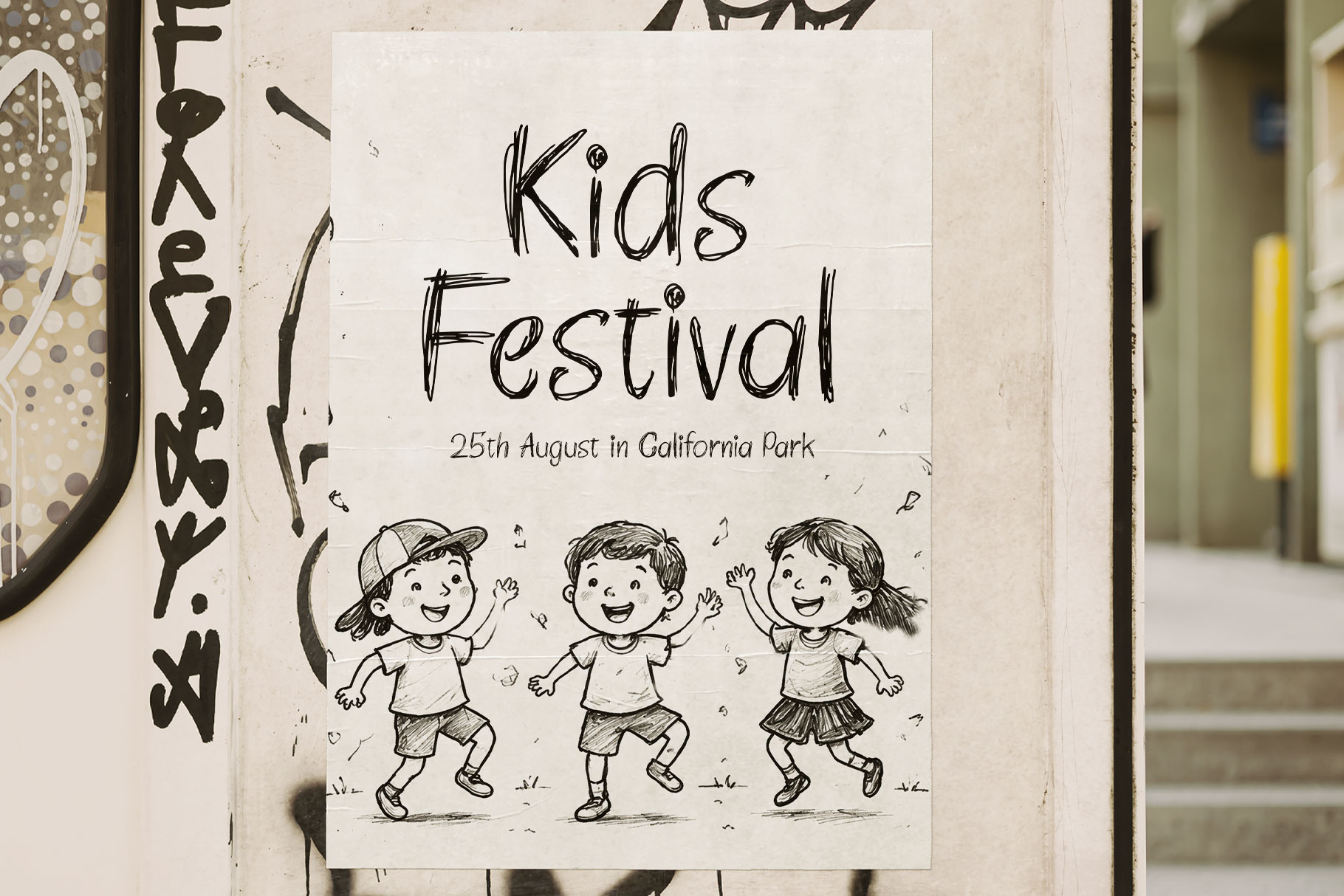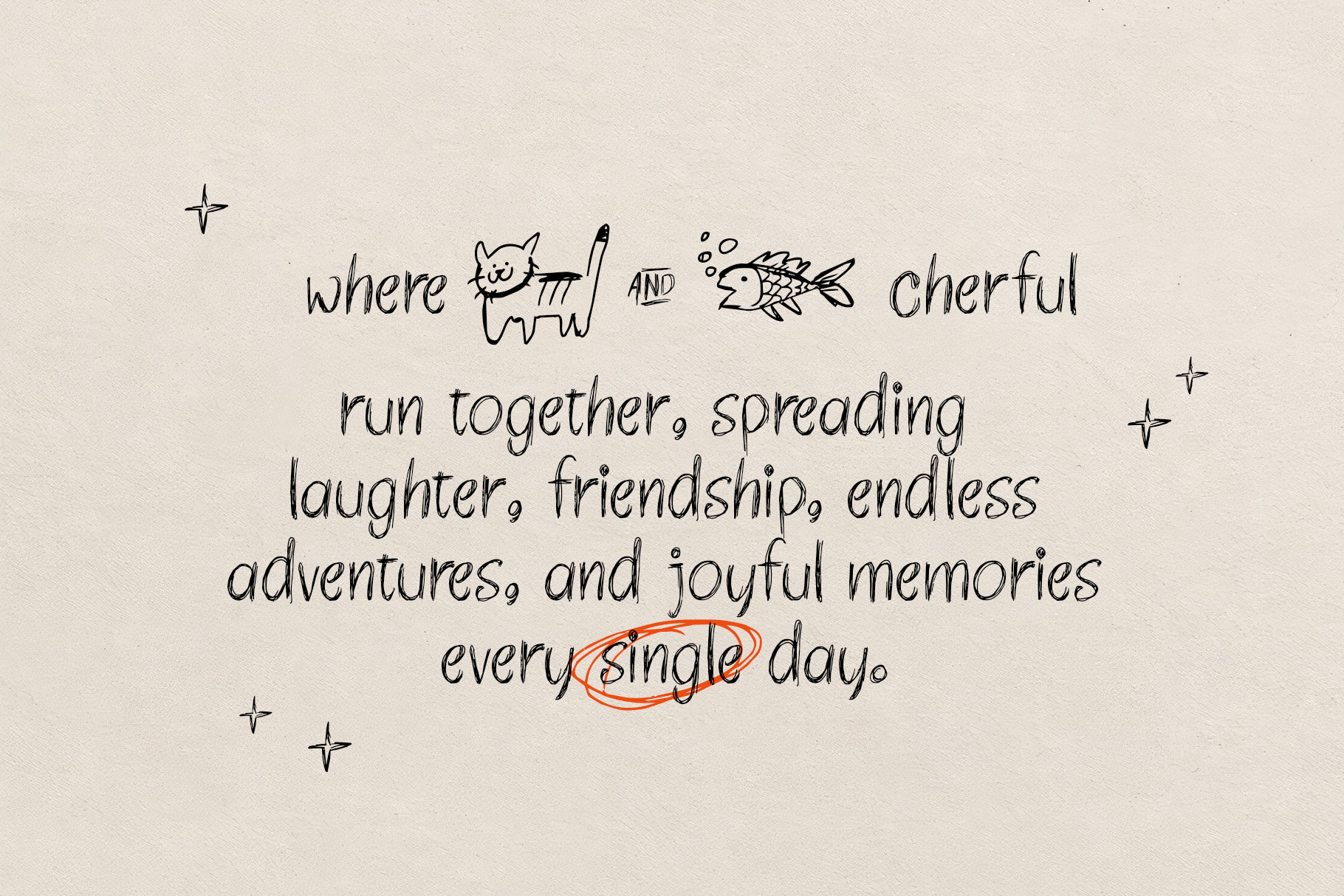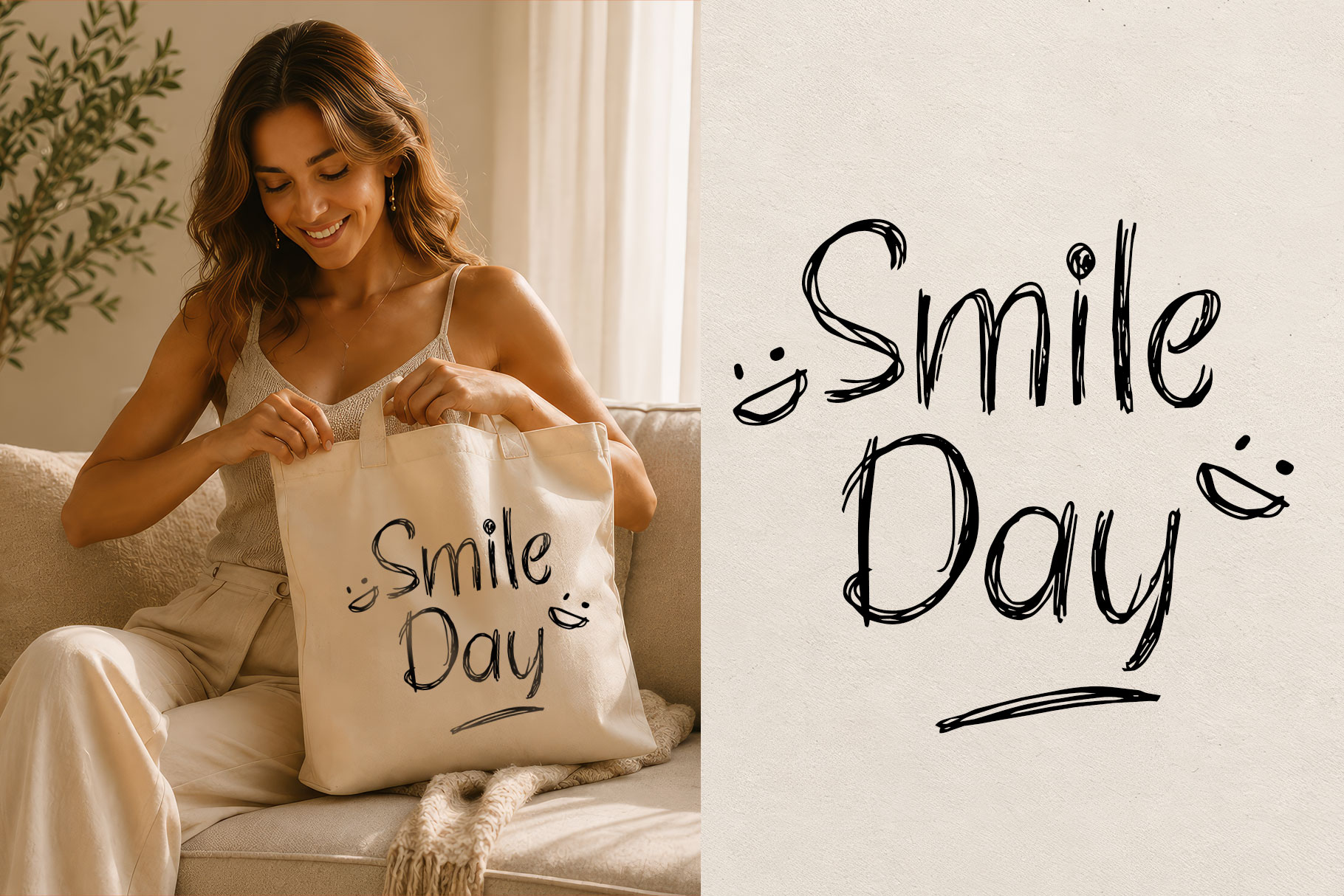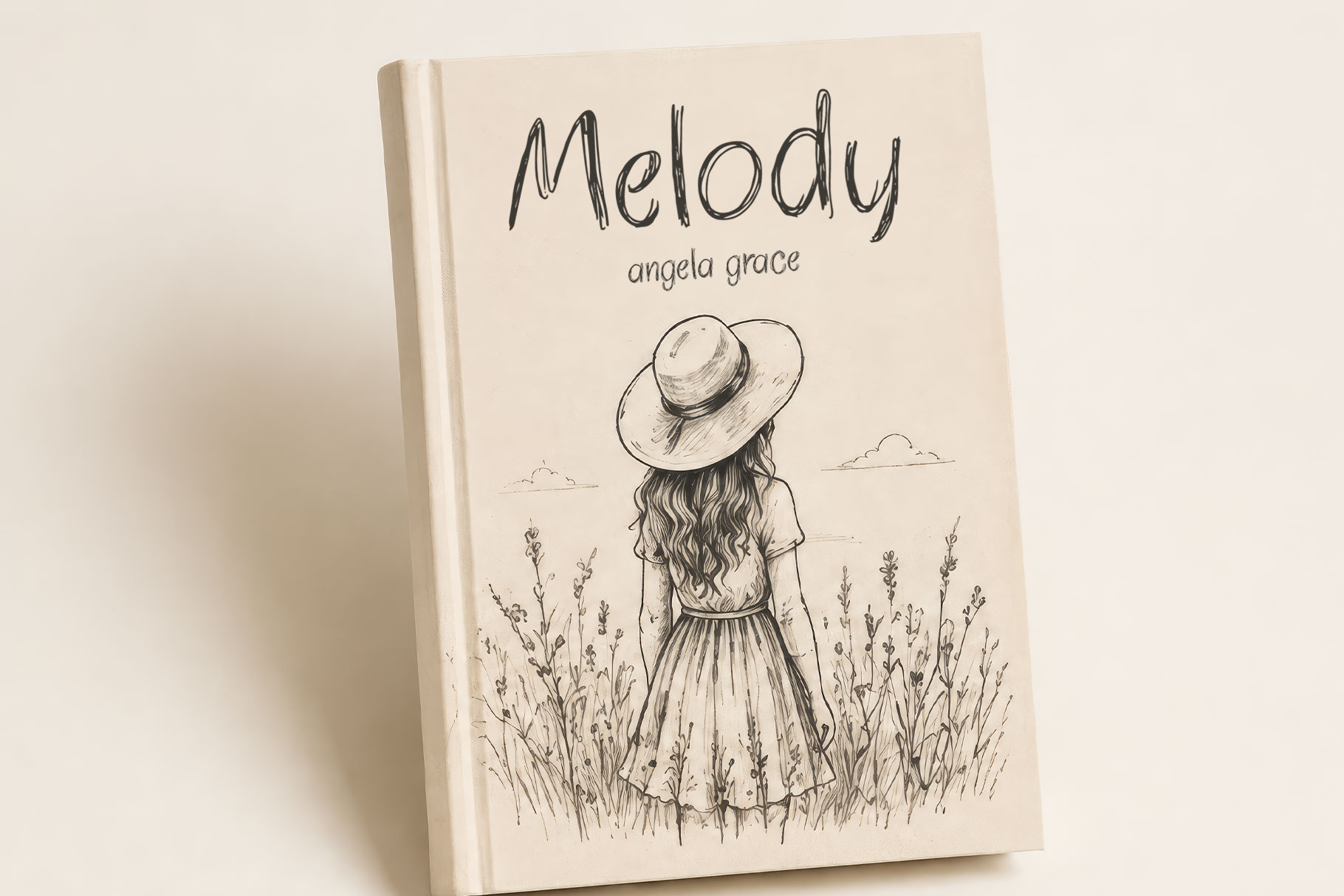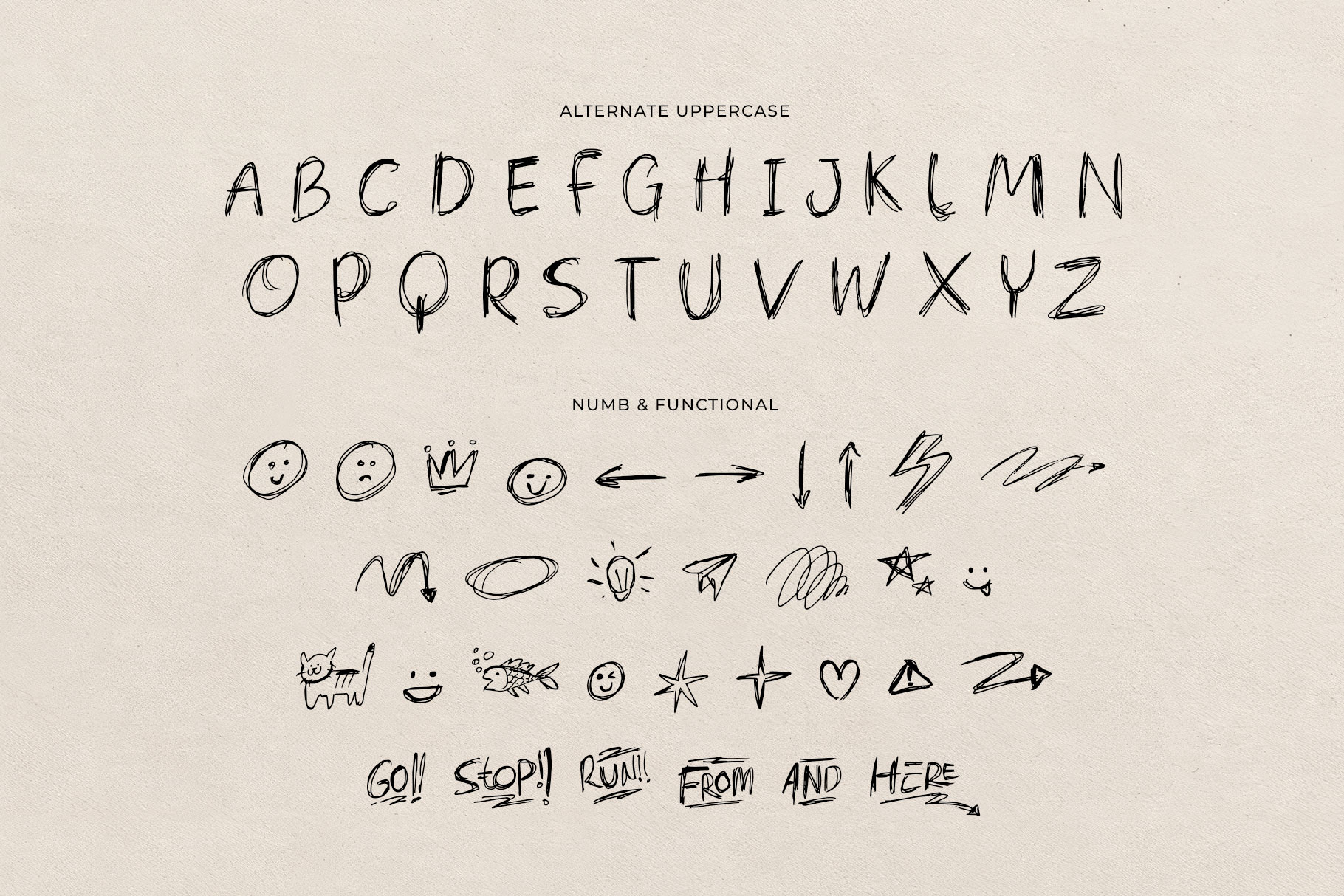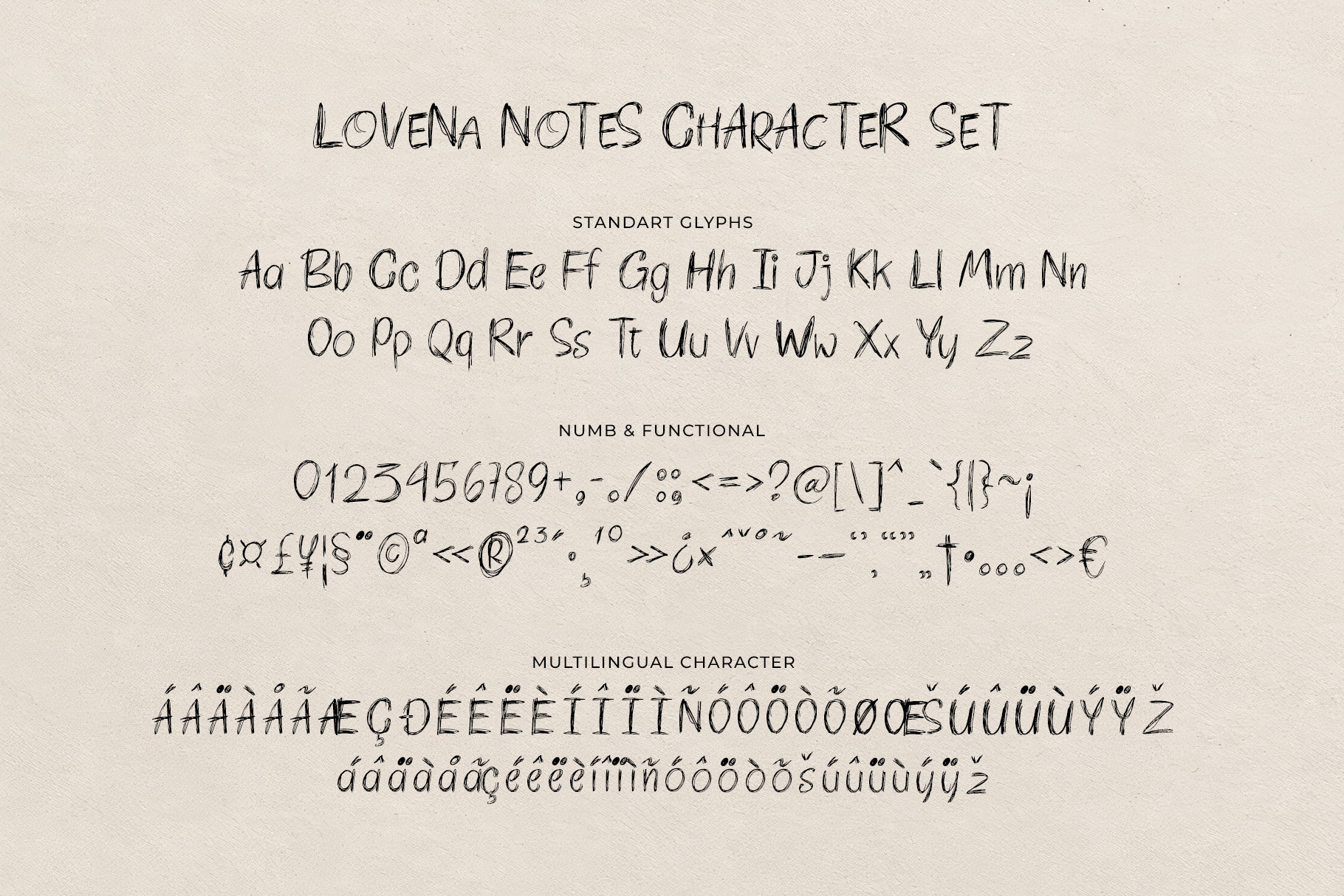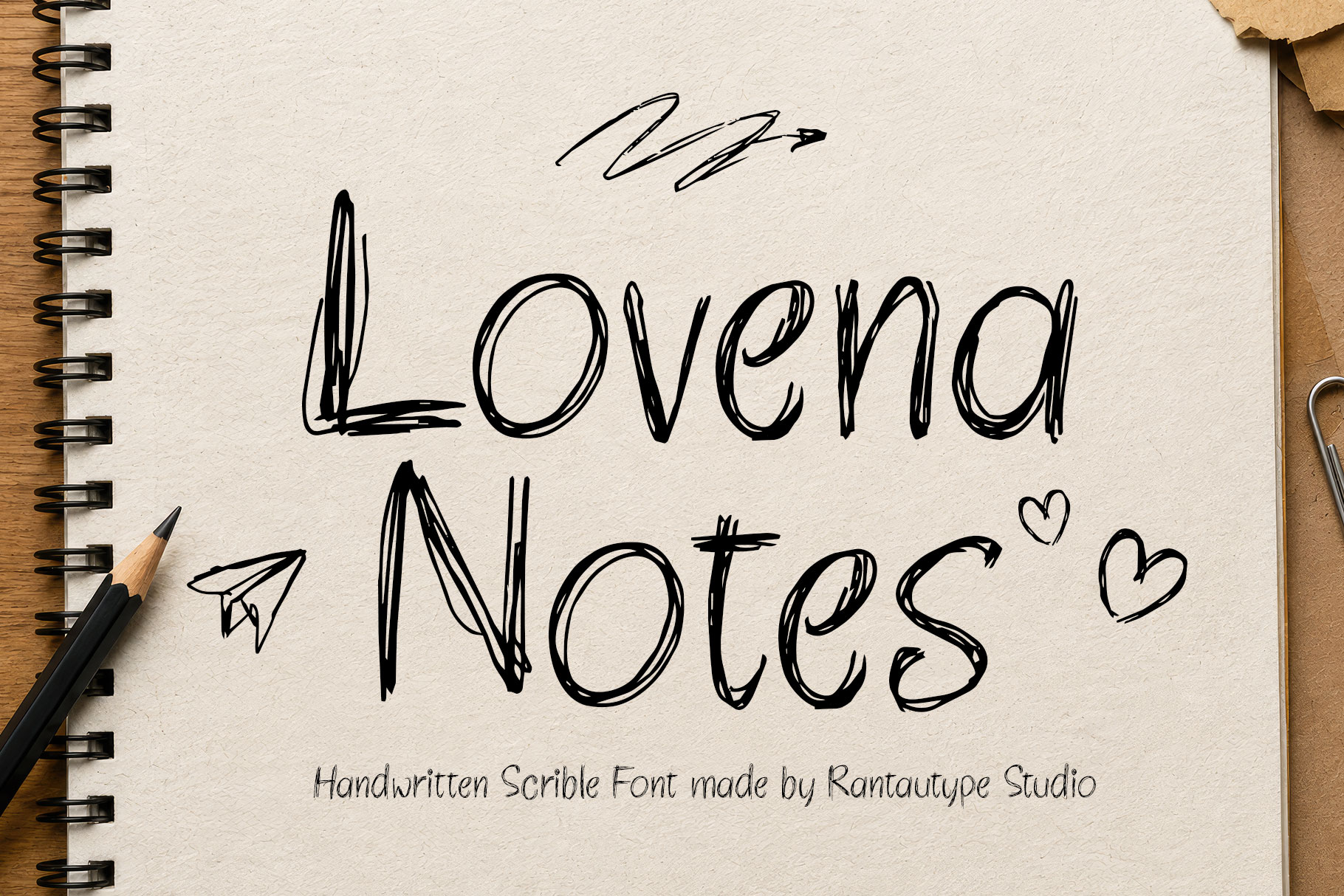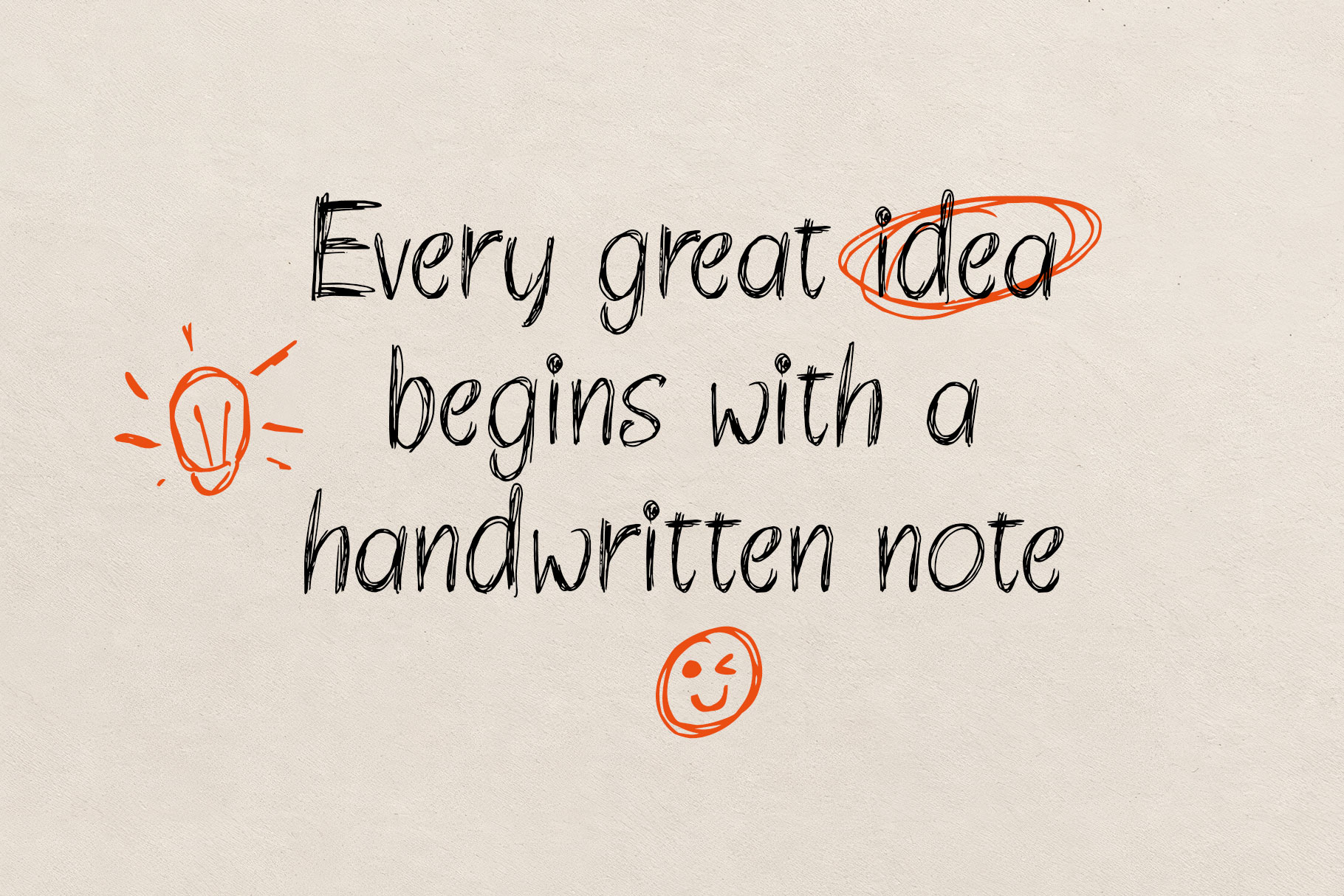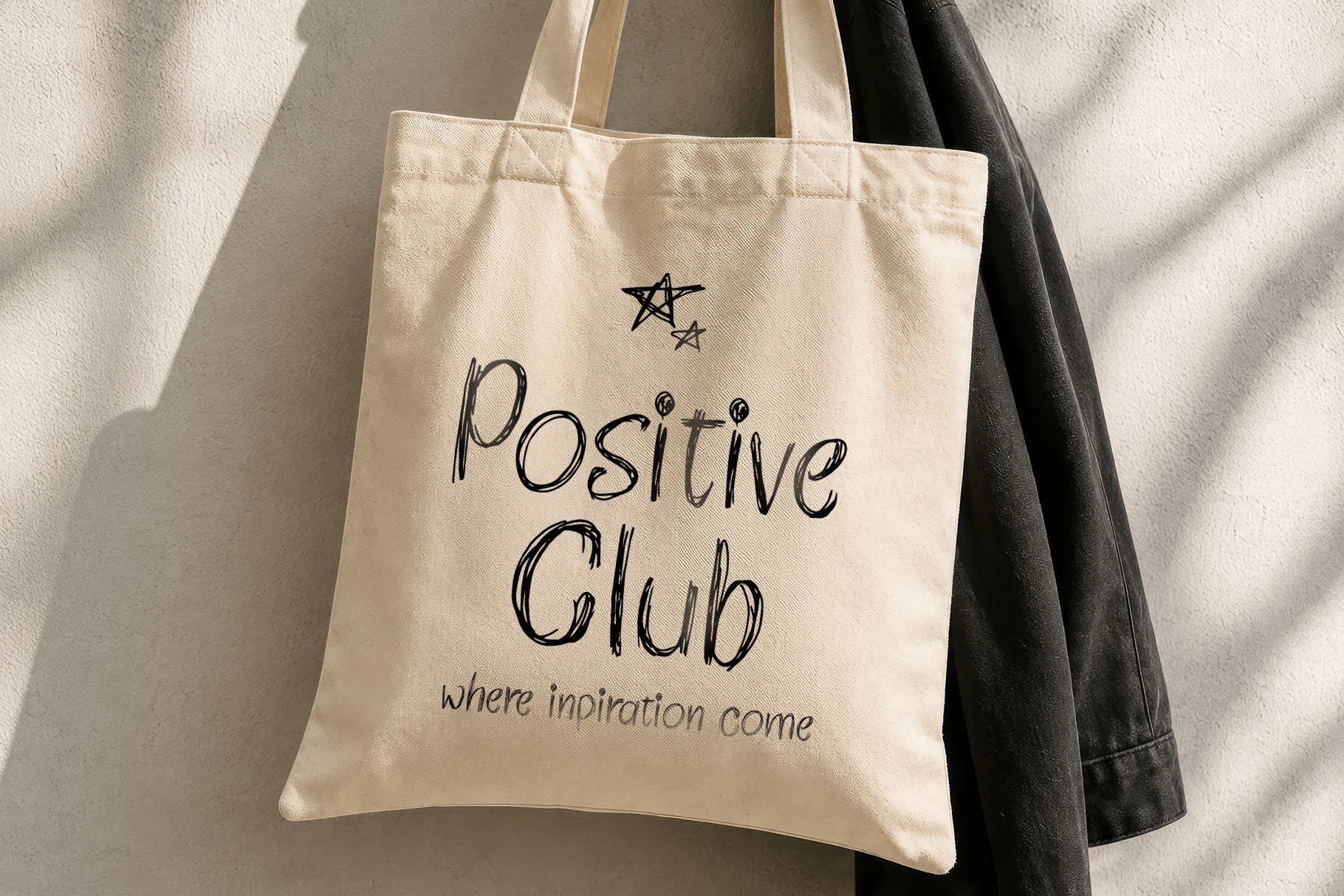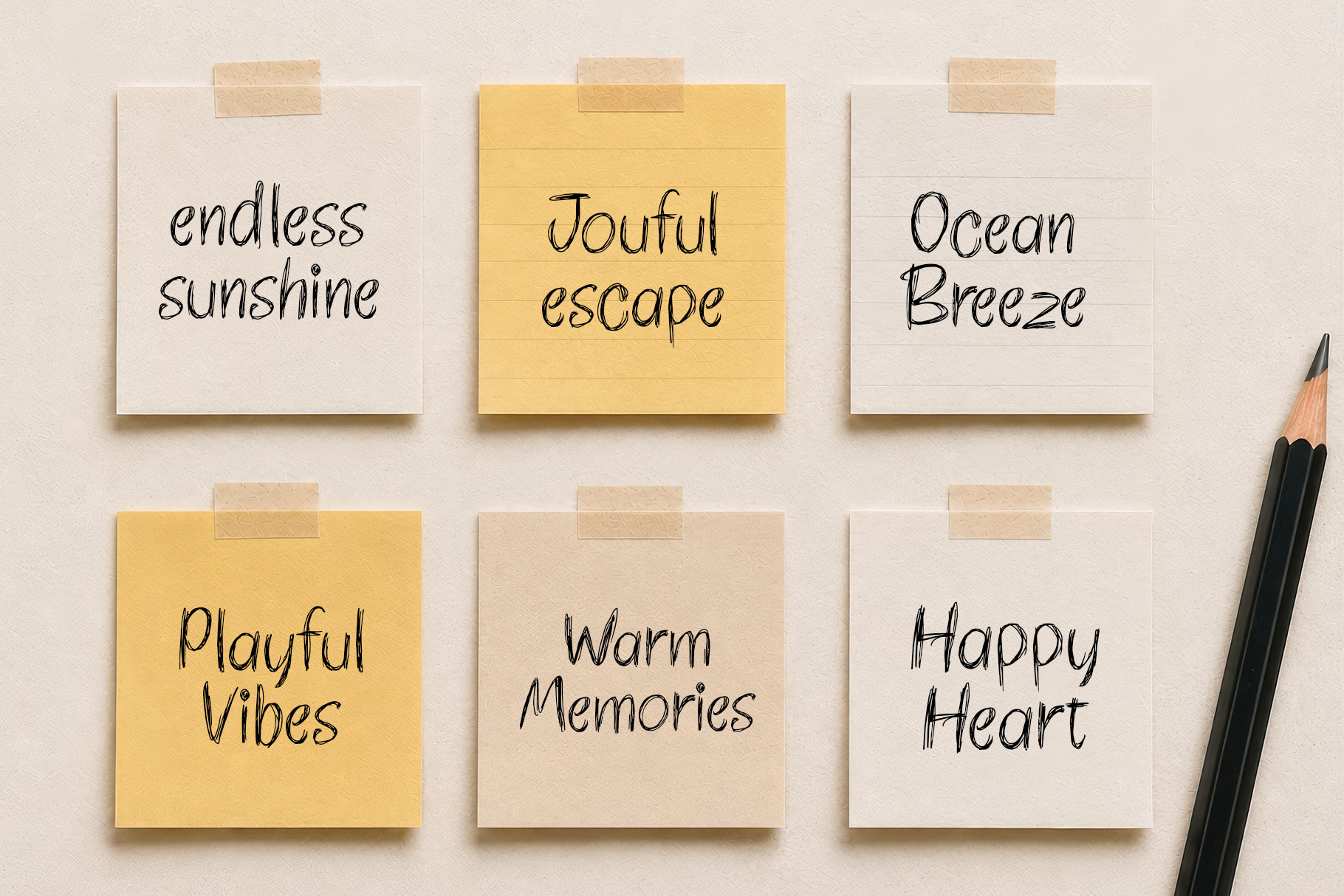
Lovena Notes is a hand-drawn sketch aesthetic with irregular multi-stroke outlines, uneven line weight, and an expressive marker/pencil feel.
Lovena Notes is a perfectly choice for any creative endeavor, creating, modern, lifestyle design such as logotype, title, cover, branding, invitations, social media posts, advertisements, printed quotes, product packaging, corporate brand, product designs, labels, watermarks, special events and any other project with artistic touch.